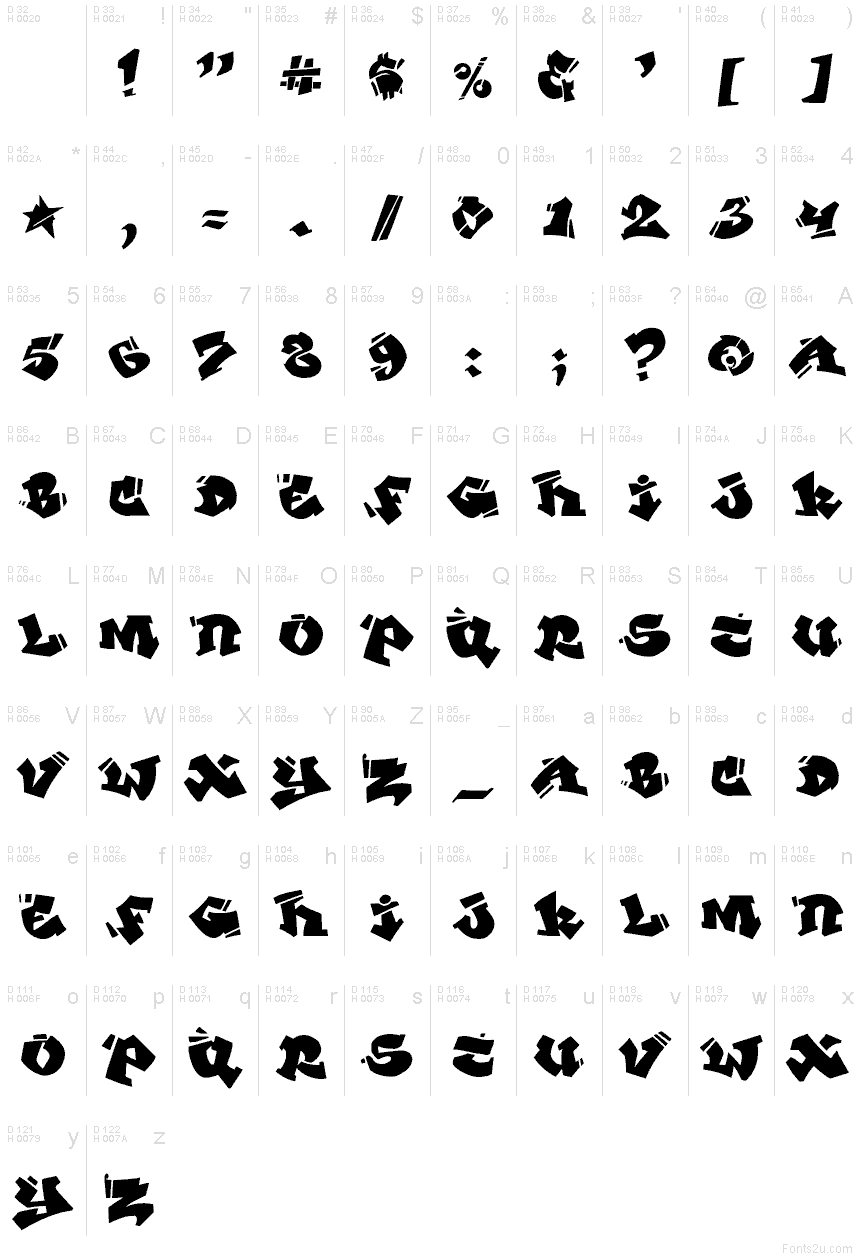
Spel Regular
Spel font by Field 2 Design is a free graffiti display font. It tackles a common headache: getting raw street energy without losing legibility. The letters hit hard—chunky, angular blocks with sliced corners and a jolting, off-kilter rhythm that feels hand-sprayed and fast. You get that gritty, high-contrast punch at a glance, yet each word still snaps into focus.
Using Spel, headlines jump off posters, streetwear marks feel lived-in, and album covers, skate graphics, stickers, social thumbnails, and event banners carry real edge. Keep it big and tight for maximum impact, then pair this free font with a clean, neutral sans for details to let the wild shapes do the shouting.